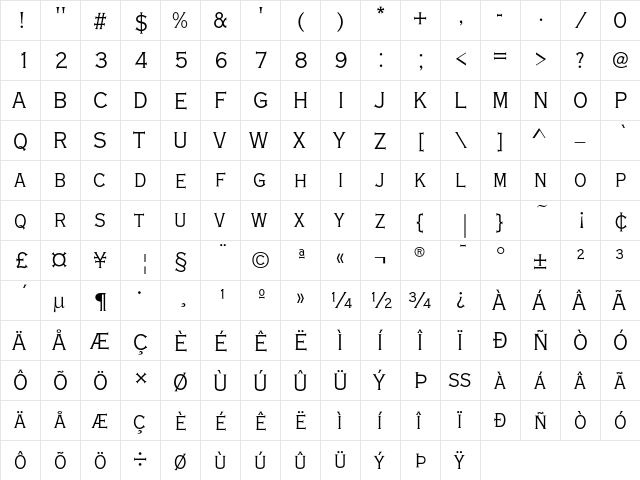
CopperplateEF LightCond
Design Context for CopperplateEF Typeface
CopperplateEF is a composed and adaptable typeface that performs quietly and consistently across a wide range of design contexts. The delicate stroke weight brings airiness and refinement to layouts. Its narrow stance lets it pack a punch even in space-constrained designs.